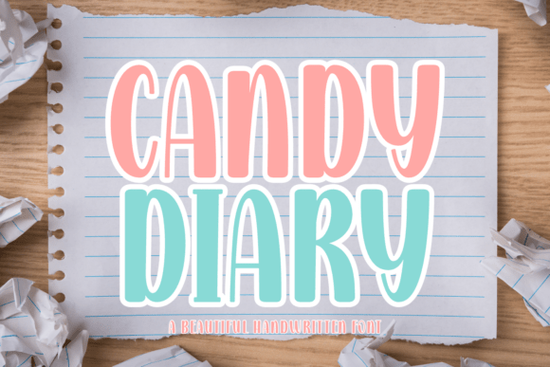
If you're looking for a handwritten font that feels fun, clean, and easy to work with, Candy Diary Font is worth a closer look. It blends a nostalgic, childhood-inspired vibe with a modern, polished finish making it useful for everything from classroom worksheets to T-shirt designs. The letterforms have a fine-tip marker quality that keeps things readable while still feeling warm and personal.
What makes Candy Diary different from other handwritten fonts?
Most handwritten fonts lean either too casual or too decorative. Candy Diary sits in a sweet spot. It has consistent, clean strokes that hold up at small sizes, but the overall feel is still playful and approachable. It doesn't sacrifice readability for personality which is a balance that's harder to find than you'd think.
Think of it as the font you'd reach for when you want something friendly but not messy.
Is it a good fit for educational materials and kids' projects?
This is where Candy Diary really shines. Its letterforms have that slightly rounded, carefree quality that children respond to naturally. It works beautifully on:
- School and preschool worksheets
- Flashcards and learning aids
- Chalkboard-style displays and bulletin boards
- Teacher notes and classroom decor
- Daily journals and student planners
Because the shapes are clean and well-formed, it also subtly introduces kids to good handwriting habits. It's decorative without being confusing a practical choice for educators who want their materials to look polished and inviting.
Can I use it for T-shirts, stickers, and print-on-demand products?
Absolutely. Candy Diary's whimsical texture makes it a solid choice for merchandise. It adds personality to T-shirts, vinyl decals, stickers, and boutique-style packaging without overwhelming the design.
If you sell on platforms like Etsy or run a small print-on-demand shop, this kind of handwritten font helps your products feel handmade and approachable. It pairs especially well with simple illustrations and pastel color palettes.
For crafters using Cricut or Silhouette machines, Candy Diary cuts cleanly and works well in scrapbooking layouts, greeting cards, and iron-on projects.
- Social media graphics Instagram posts, stories, and highlight covers
- YouTube thumbnails and channel art
- Digital planners and journal templates
- Storybook layouts and children's book interiors
- Product packaging and labels
Create something on screen, then print it, cut it, or put it on a shirt the font holds up across all formats.
What other fonts pair well with Candy Diary?
Building a cohesive design system around a single font works best when you add one or two complementary typefaces. Here are a few options that sit nicely alongside Candy Diary:
- A bold script with thicker strokes great for headers and logos that need more visual weight
- Flowing, connected cursive lettering ideal for invitations and quote designs
- A warm handwritten companion matches Candy Diary's casual tone without competing for attention
- Refined script options useful when a project calls for something more polished
- Decorative lettering with swirls perfect for monograms and ornamental details
You can explore all of these including The Bileso Font, Loopzy Font, Room for Tiramisu Font, Mafuinka Font, and Curlicue Font in Creative Fabrica's font library.
Before you start designing, keep these tips in mind
- ✅ Check the license to confirm it covers your specific use personal, commercial, or print-on-demand
- ✅ Test Candy Diary at both small and large sizes to find its best range
- ✅ Pair it with a clean sans-serif or simple serif for body copy
- ✅ Try it in Canva or Procreate first if you're working on digital layouts
- ✅ Keep backgrounds simple Candy Diary carries enough personality on its own
Candy Diary earns its spot in your toolkit through sheer versatility. Whether you're designing classroom resources, building a product line, or making something fun for a personal project it delivers that sweet, approachable look without a lot of extra effort.